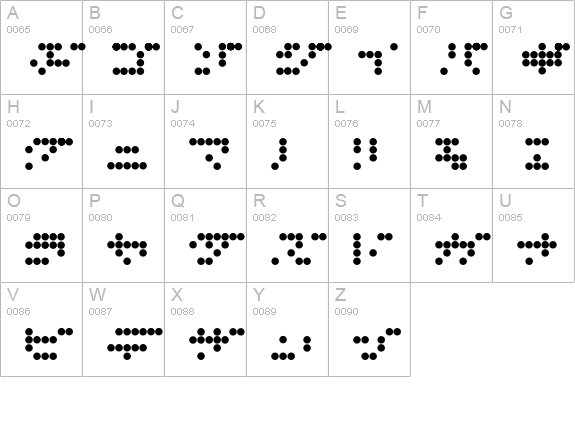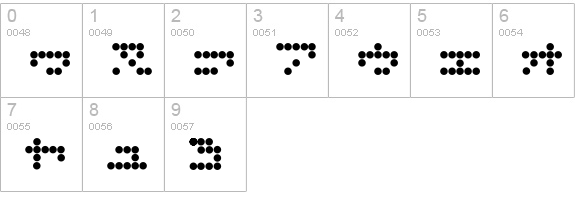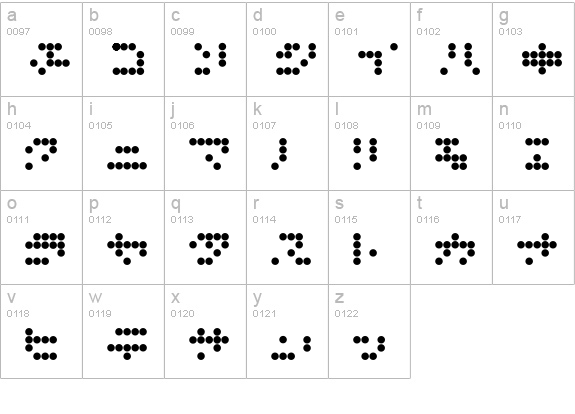
Dotplain Font Details
Dotplain font is a modern and versatile typeface that combines elegance with a touch of playfulness. Its unique design features crisp, clean lines and perfectly rounded dots that give it a distinctive look. Whether you're working on a professional project or a creative design, Dotplain font is sure to make a statement. What makes Dotplain font even more appealing is that it is completely free to download at FontsMarket.com. This means that you can easily access this stylish and eye-catching font without any cost. With its wide range of weights and styles, Dotplain font offers endless possibilities for adding a touch of sophistication to your designs. Whether you're designing a logo, creating a website, or working on a branding project, Dotplain font is a fantastic choice that will help your work stand out. Download Dotplain font today and elevate your designs with its sleek and modern aesthetic.